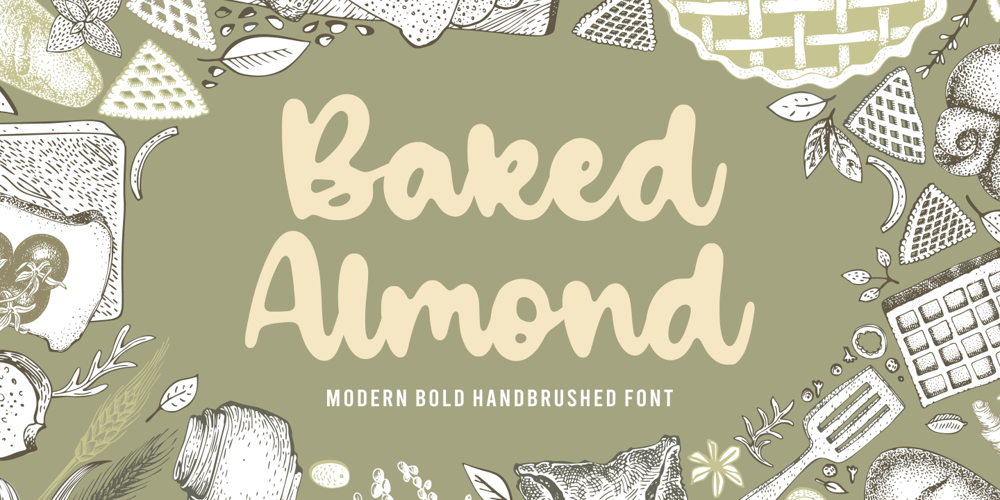
Baked Almond Font Family was designed by Restu Angga and published by Balpirick. Baked Almond contains 1 styles and family package options. Baked Almond Font.Baked Almond is a Modern Bold Handbrushed Font.Baked Almond is a bold and flowing handwritten font. Fall in love with its incredibly versatile style and use it to create spectacular designs! Baked Almond also multilingual support.Enjoy the font, feel free to comment or feedback, send me PM or email.